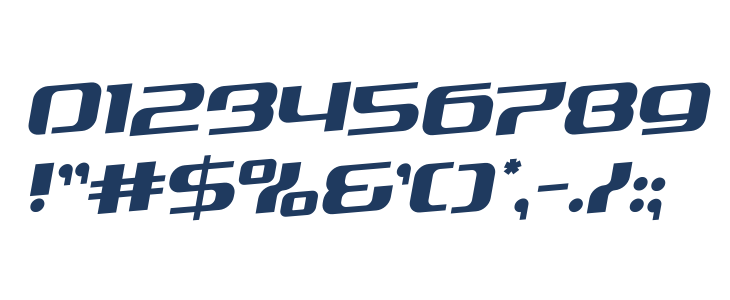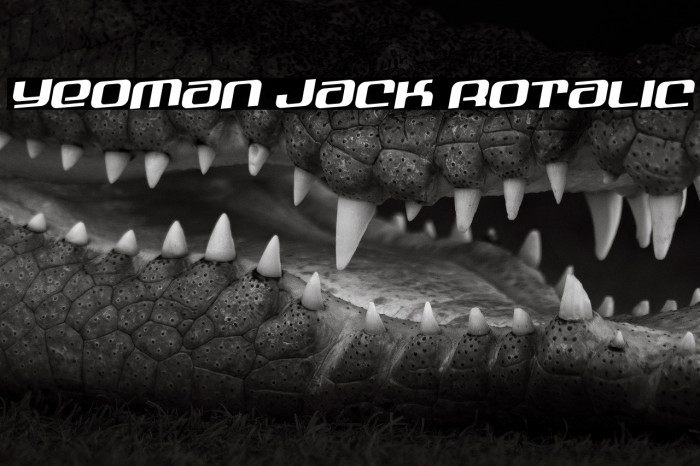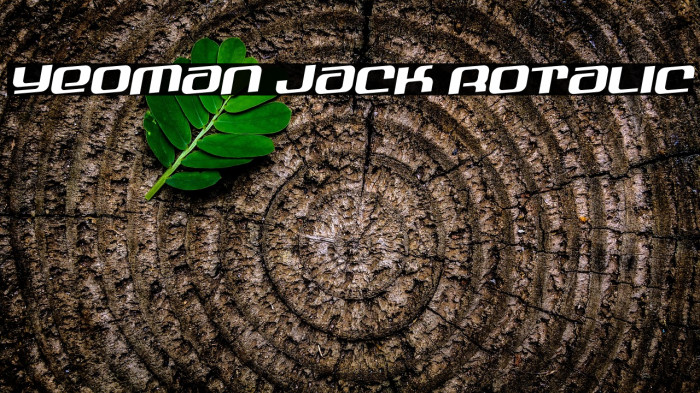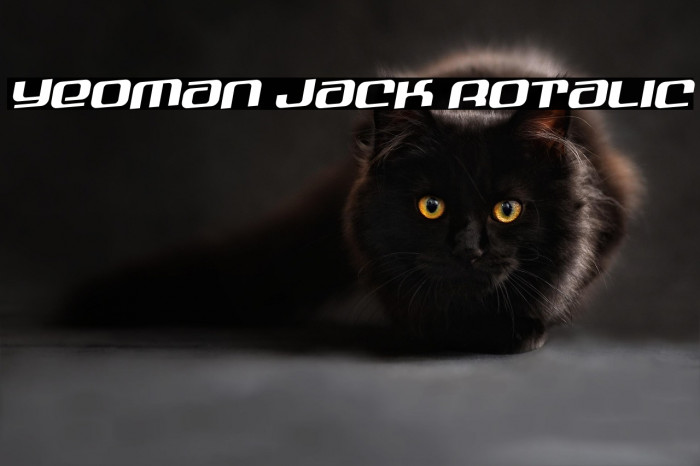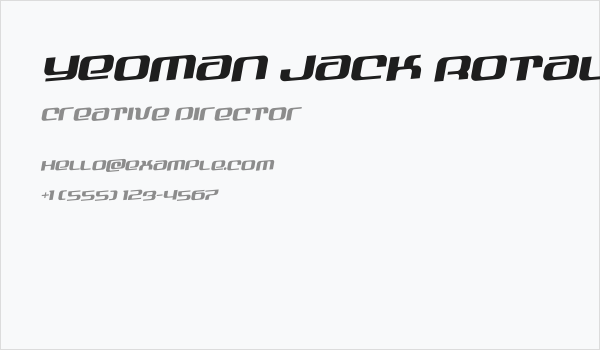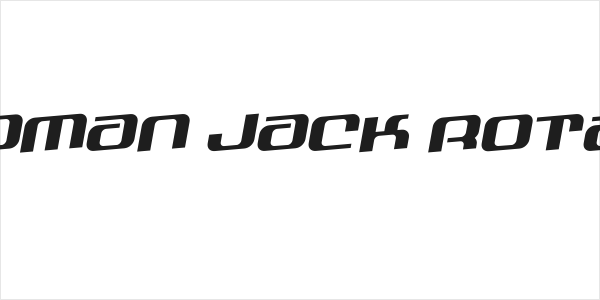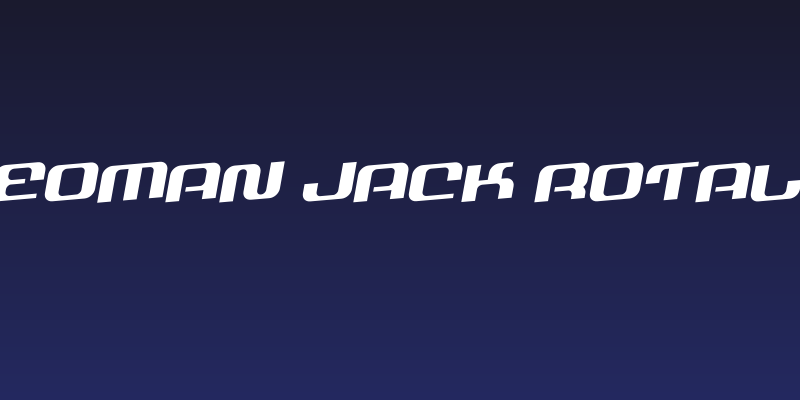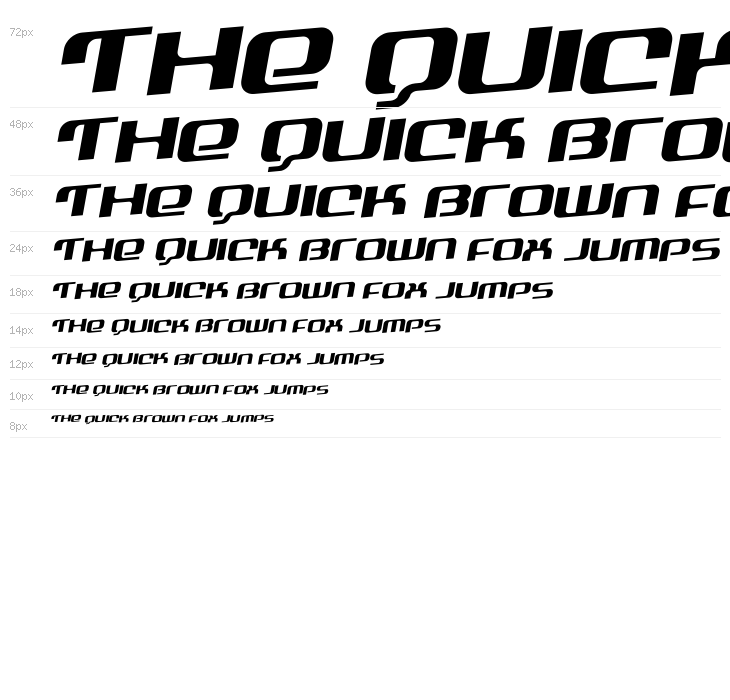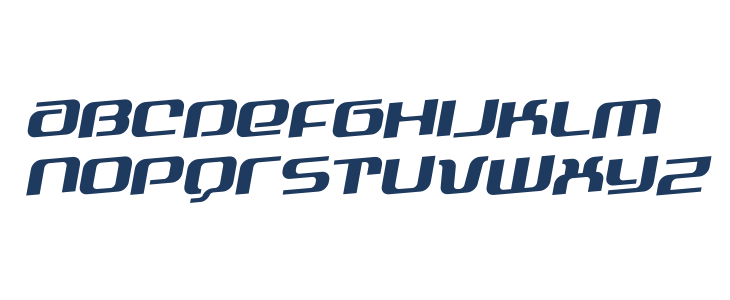
Yeoman Jack Rotalic Font
Yeoman Jack Rotalic Description
This font features a bold, dynamic style with a strong forward slant, giving it a sense of motion and energy. The characters are wide and have a futuristic, sporty appearance, making them stand out with their unique angular cuts and sharp edges. The uppercase and lowercase letters maintain a consistent style, with the lowercase slightly smaller but equally impactful. The numerals and special characters are designed to match the overall aesthetic, ensuring a cohesive look across all text elements. The font's design is both modern and edgy, suitable for projects that require a bold statement.